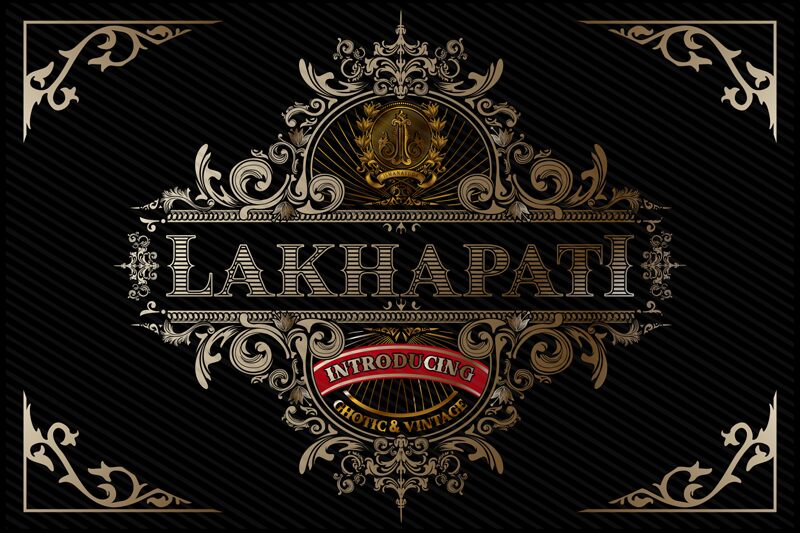
LAKHAPATI Regular
LAKHAPATI, the gothic font designed by ismanayuda, is the perfect blend of modern style and boldness. Its unique design makes it suitable for a wide range of projects, including horror-themed designs, video game titles, and movie posters. With its striking appearance, LAKHAPATI is also ideal for branding projects that require a strong presence. This semi-bold font typeface captures attention with its powerful strokes and impeccable curves. Its excellent readability makes it perfect for headlines and captions in magazines or newspapers while also being an excellent choice for website content. Overall, LAKHAPATI is a versatile font that adds a touch of sophistication to any project it's used in.